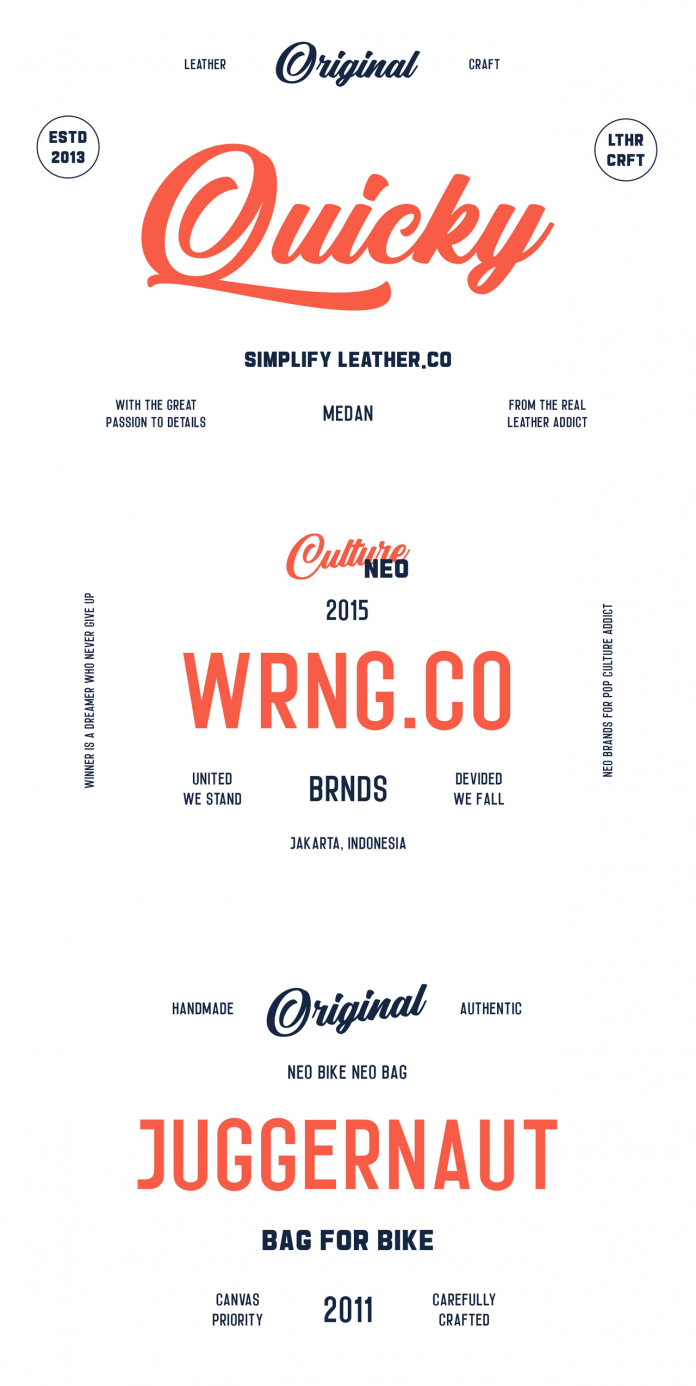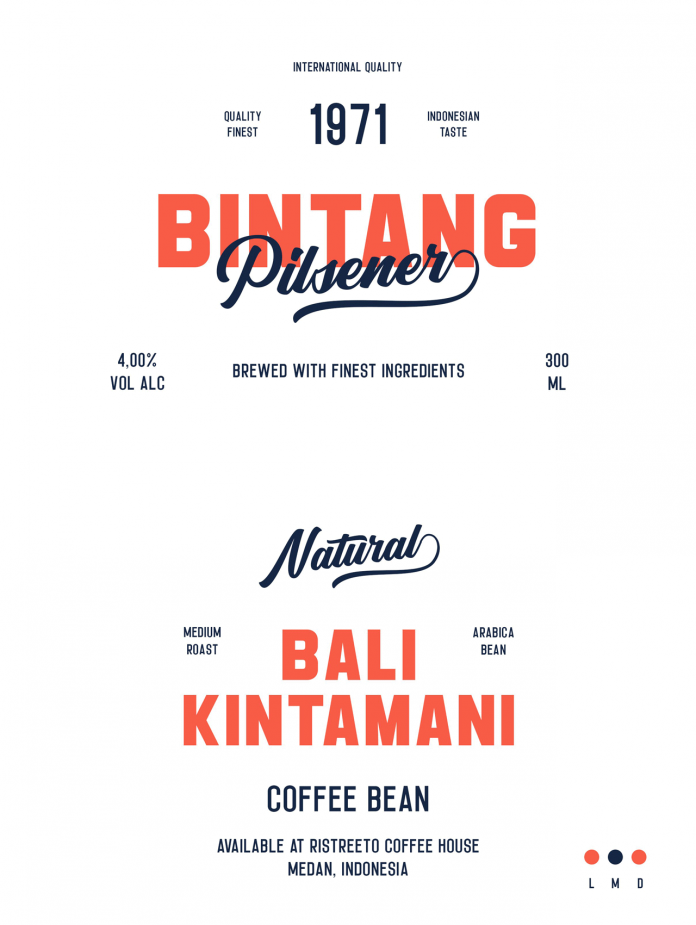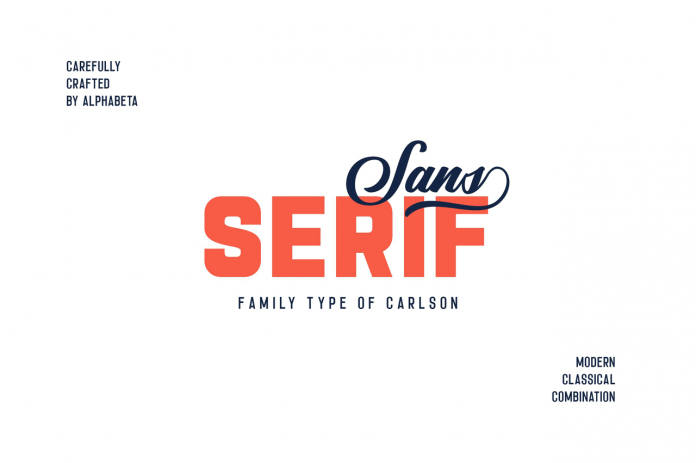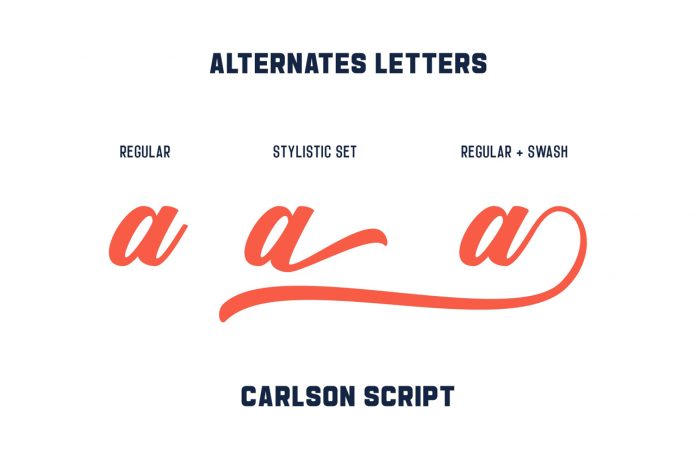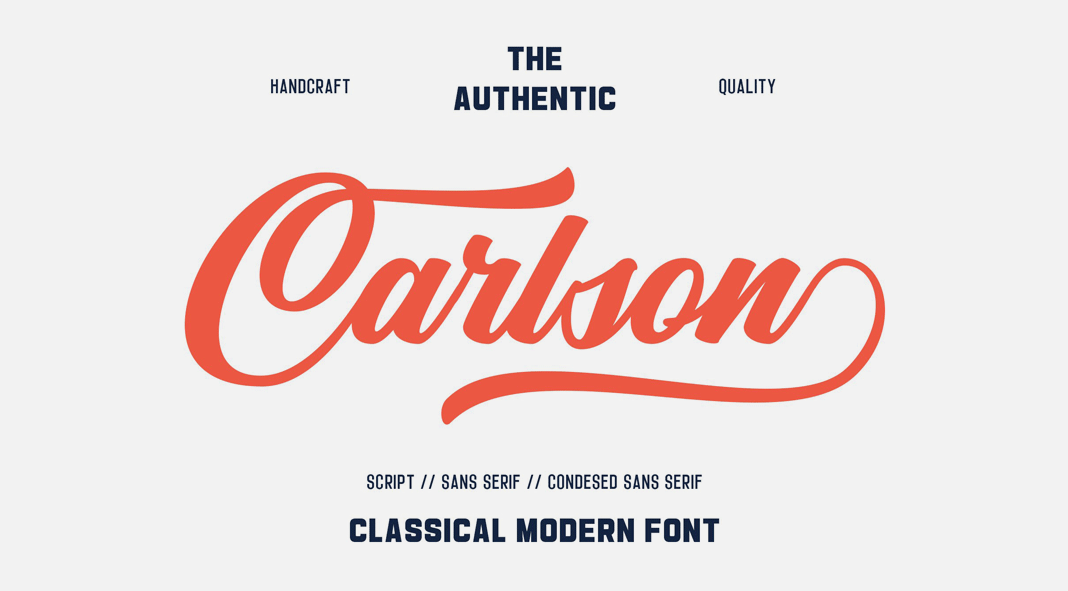
Carlson, 3 font combinations from type foundry Alphabeta.
Consisting of three fonts, a stylish script and two sans serif versions, the Carlson fonts were designed and published by Alphabeta to create a lettering style that combines classic and modern characteristics. Carlson also comes with numerous OpenType features including swashes, stylistic alternates, and eye-catching ligatures. You can use these fonts alone or in combination for branding projects, labels, logos, badges, apparel design, just to name a few. All three fonts are included as OTF and TTF versions. To learn more, just click on one of the following links or check out the images below.